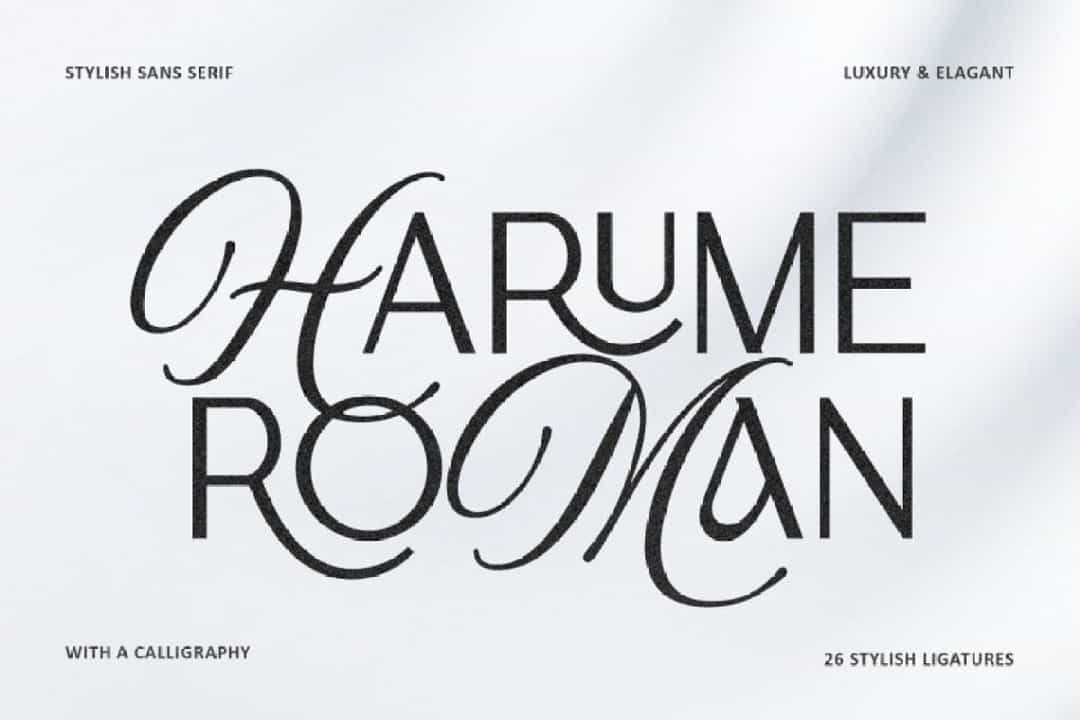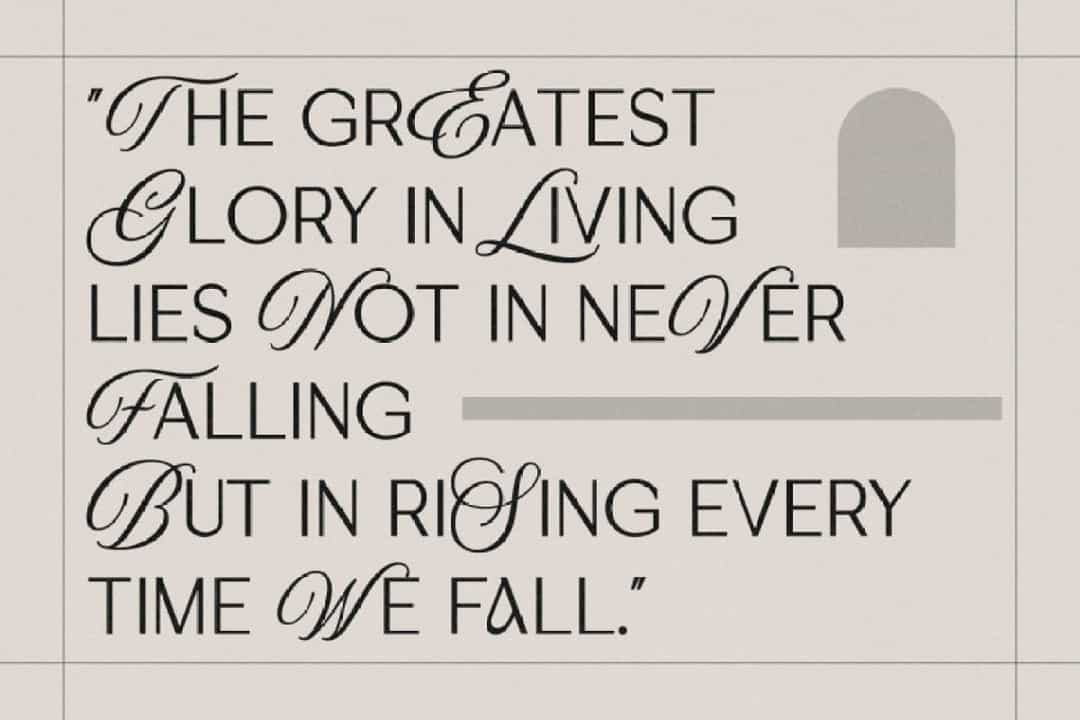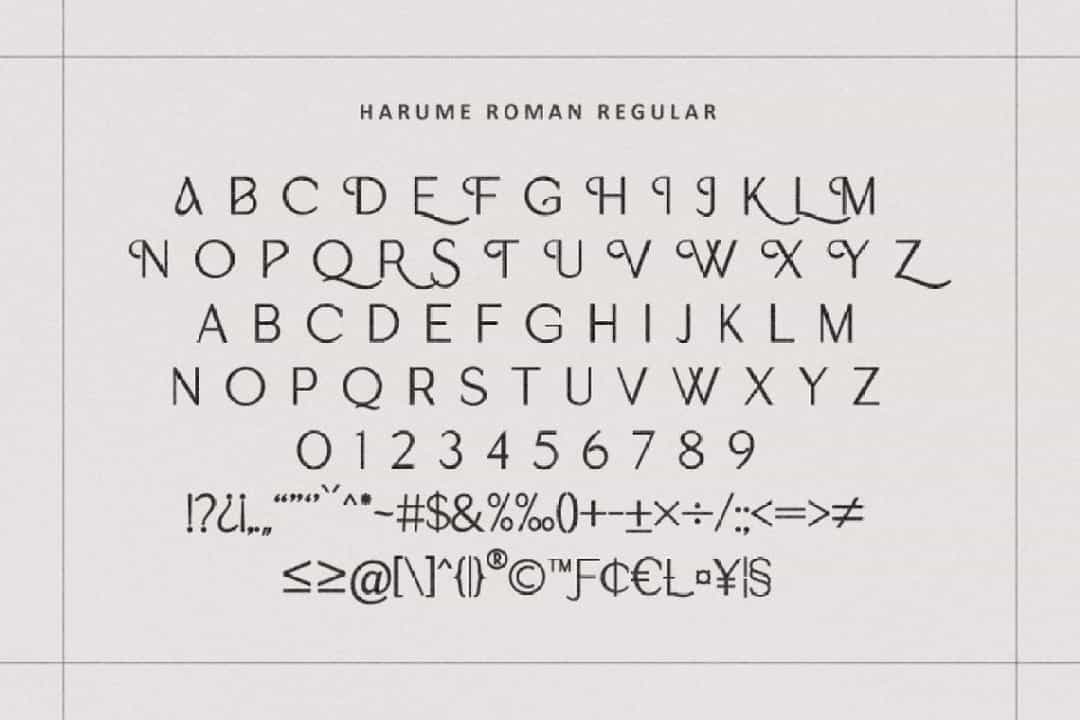
Harume Roman is a luxurious sans serif typeface which exudes style and sophistication, featuring perfect proportions and subtly detailed shapes that bring it all together. Perfect for branding that exudes class as well as editorial layouts or packaging designs that showcase style, Harume Roman is ideal for high-end branding designs and packaging designs that exude style and elegance.